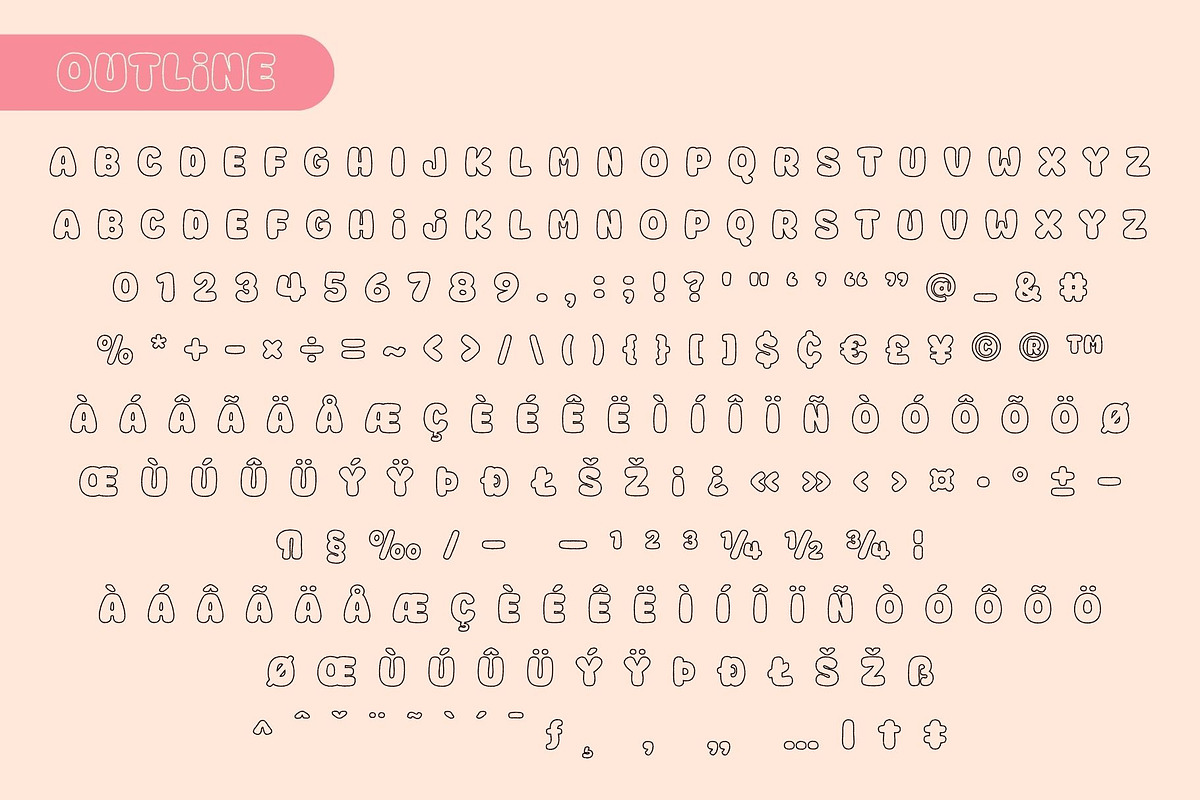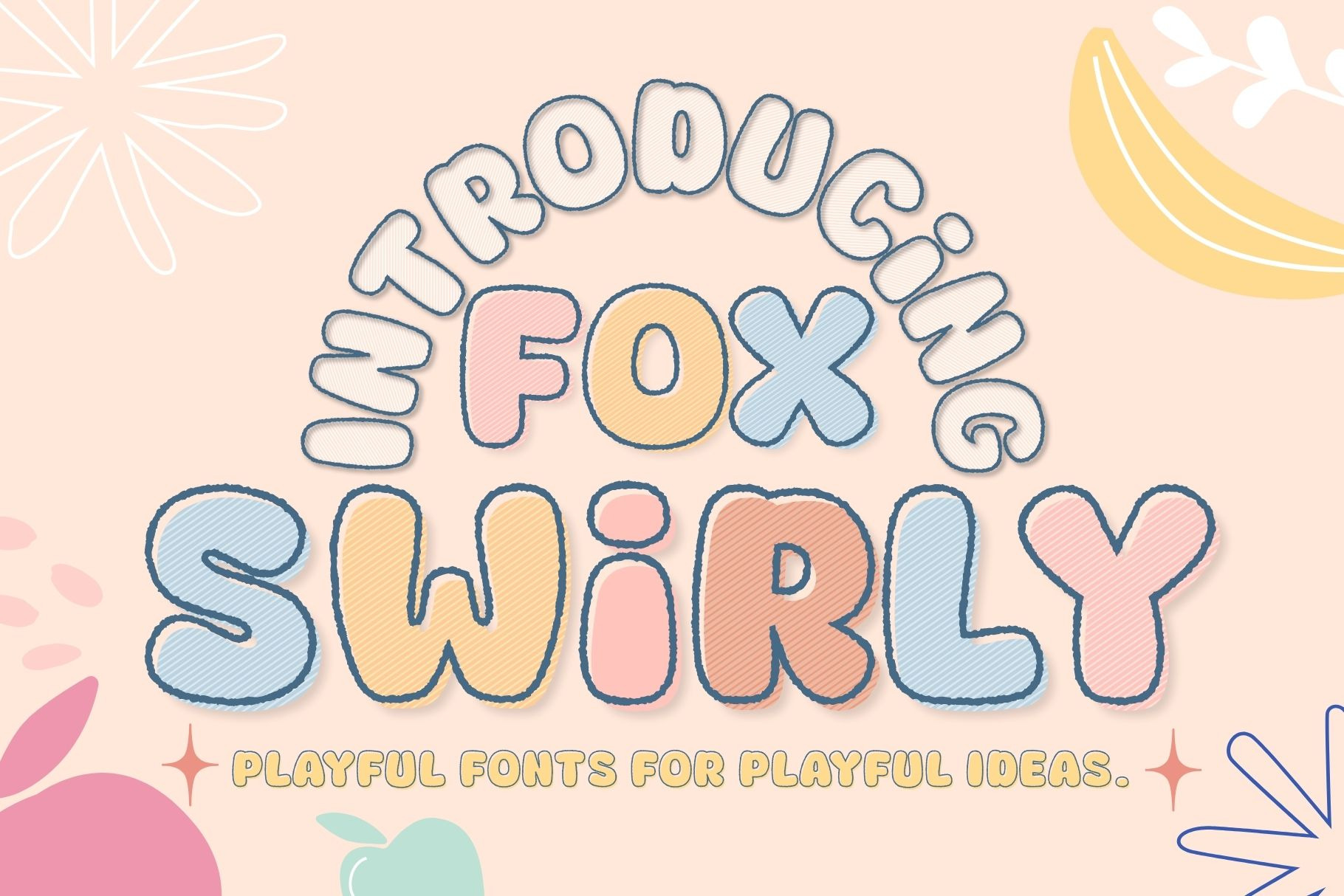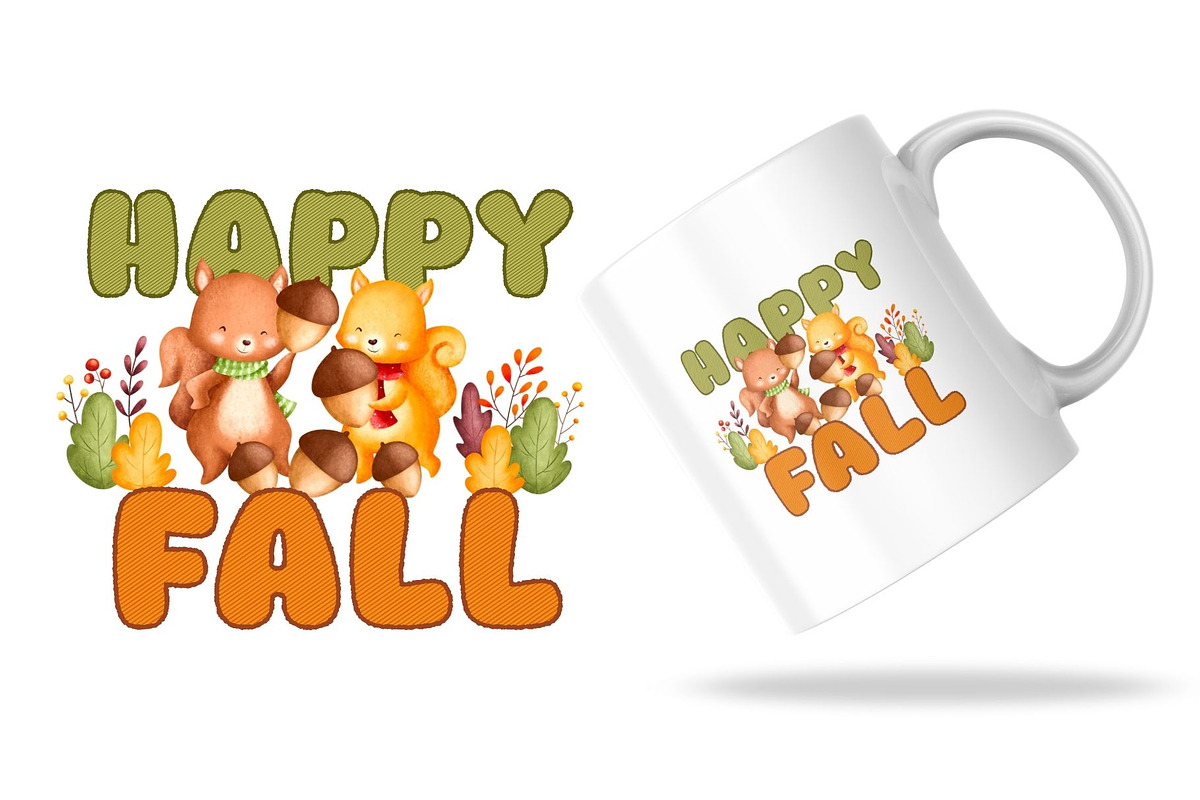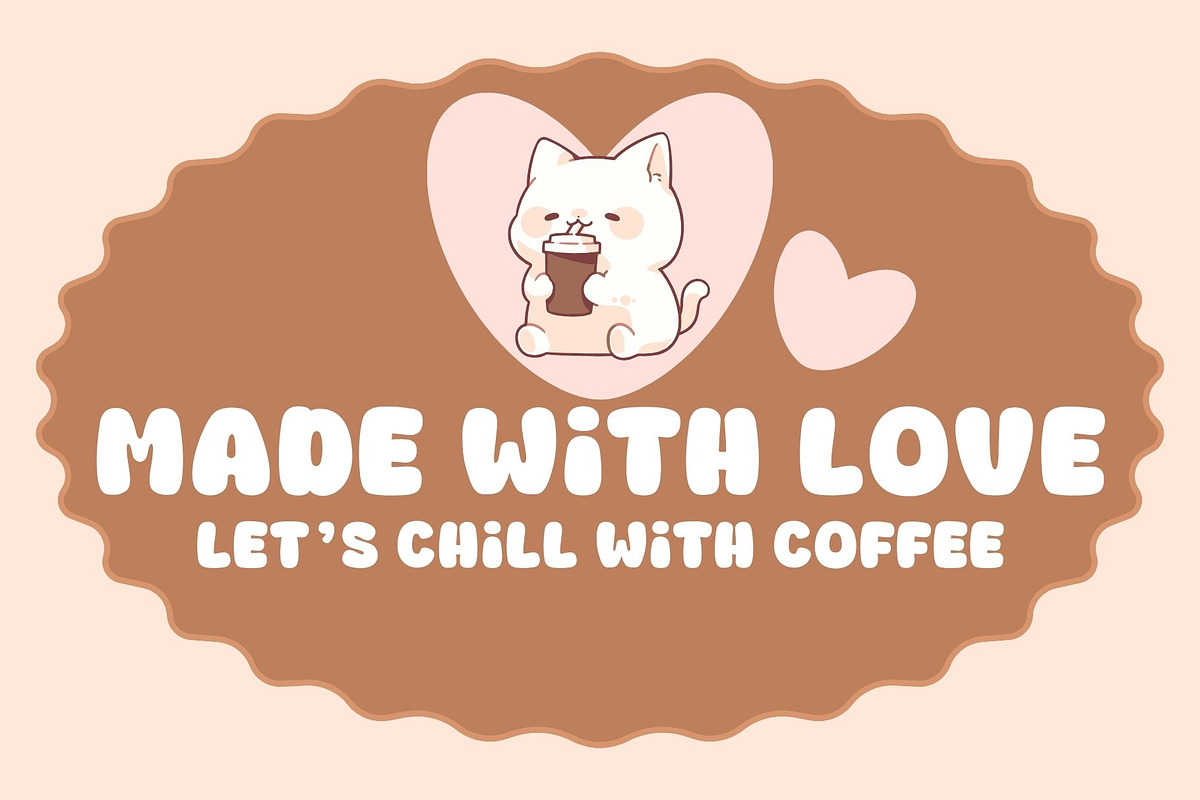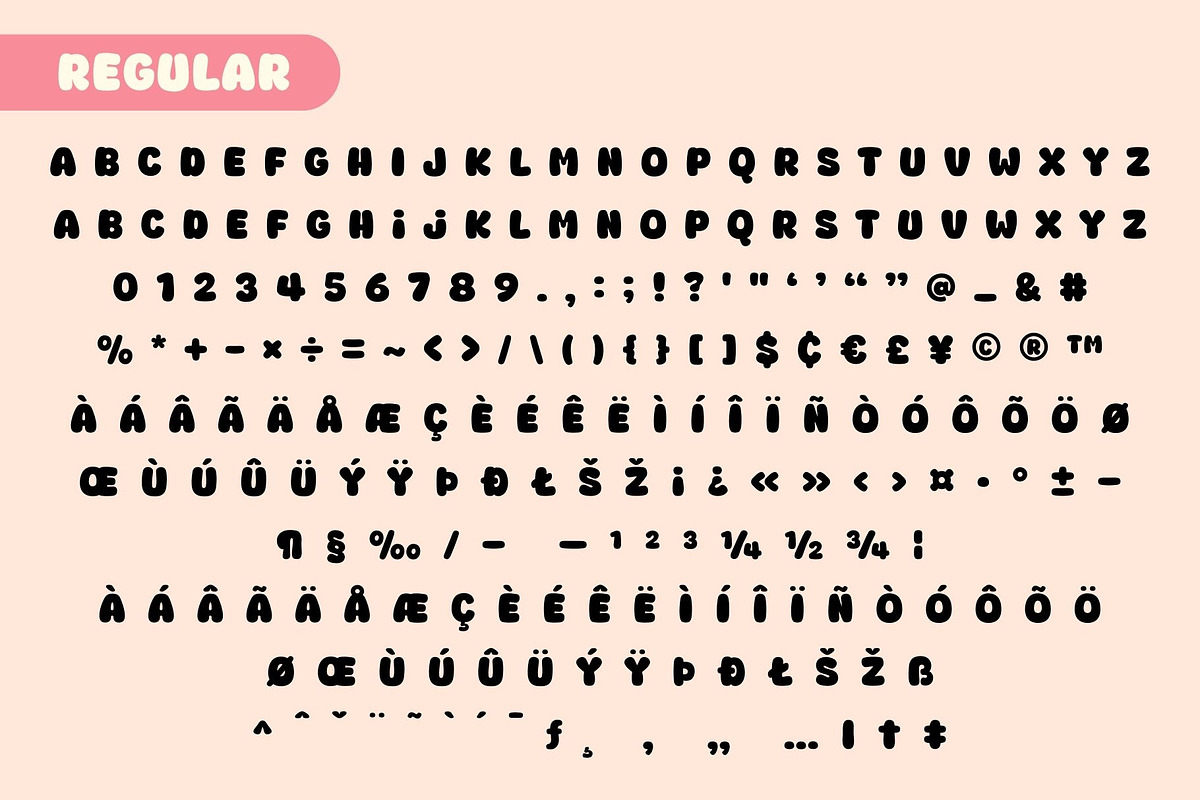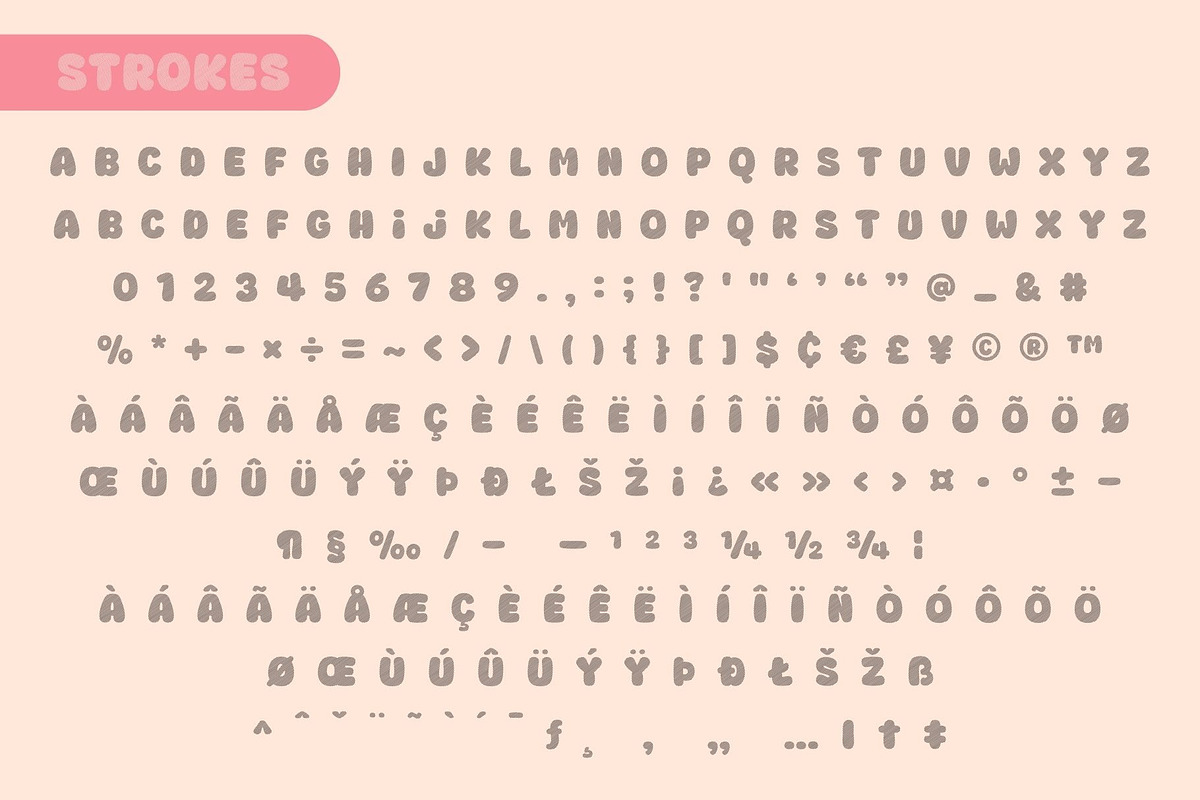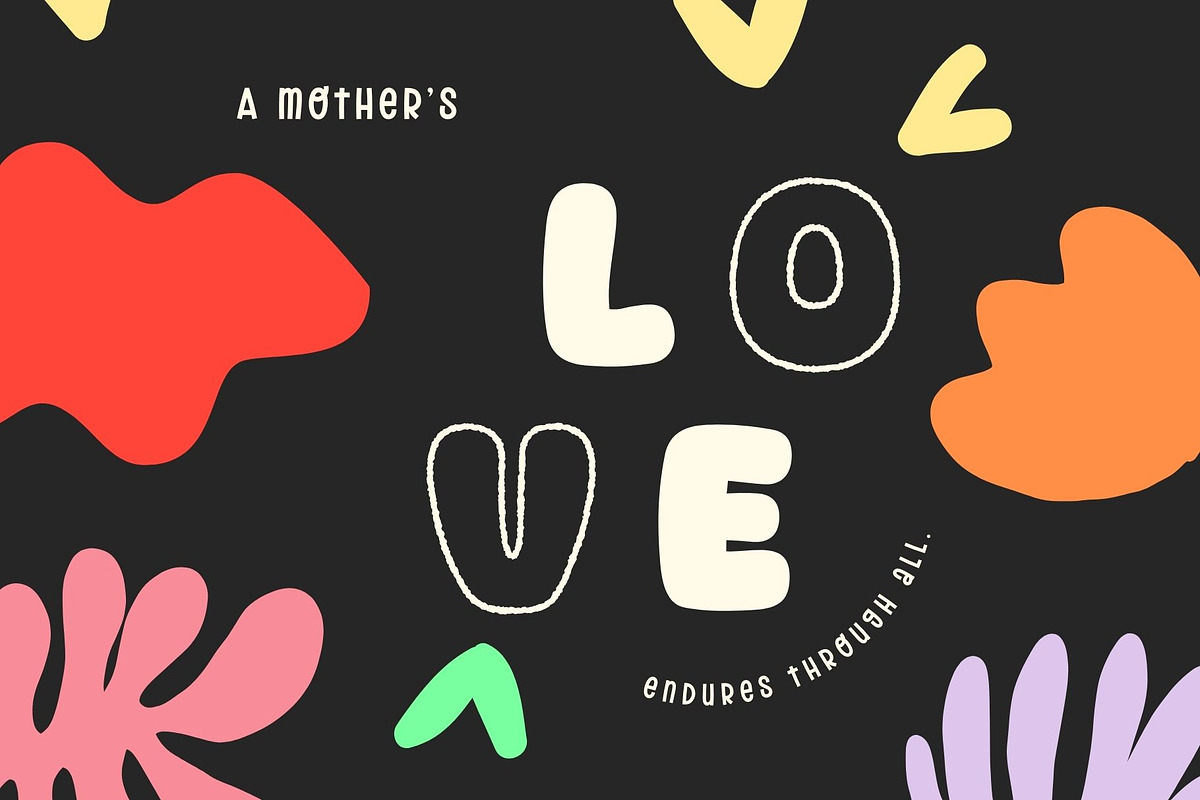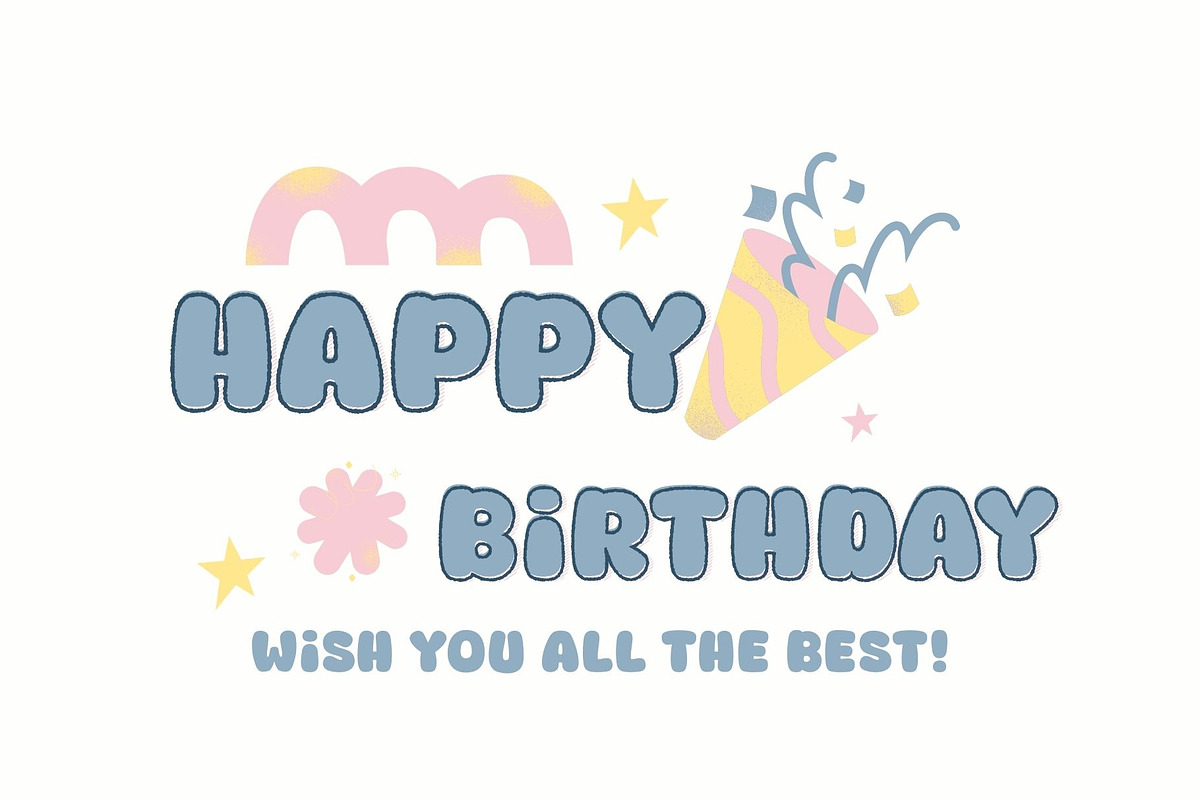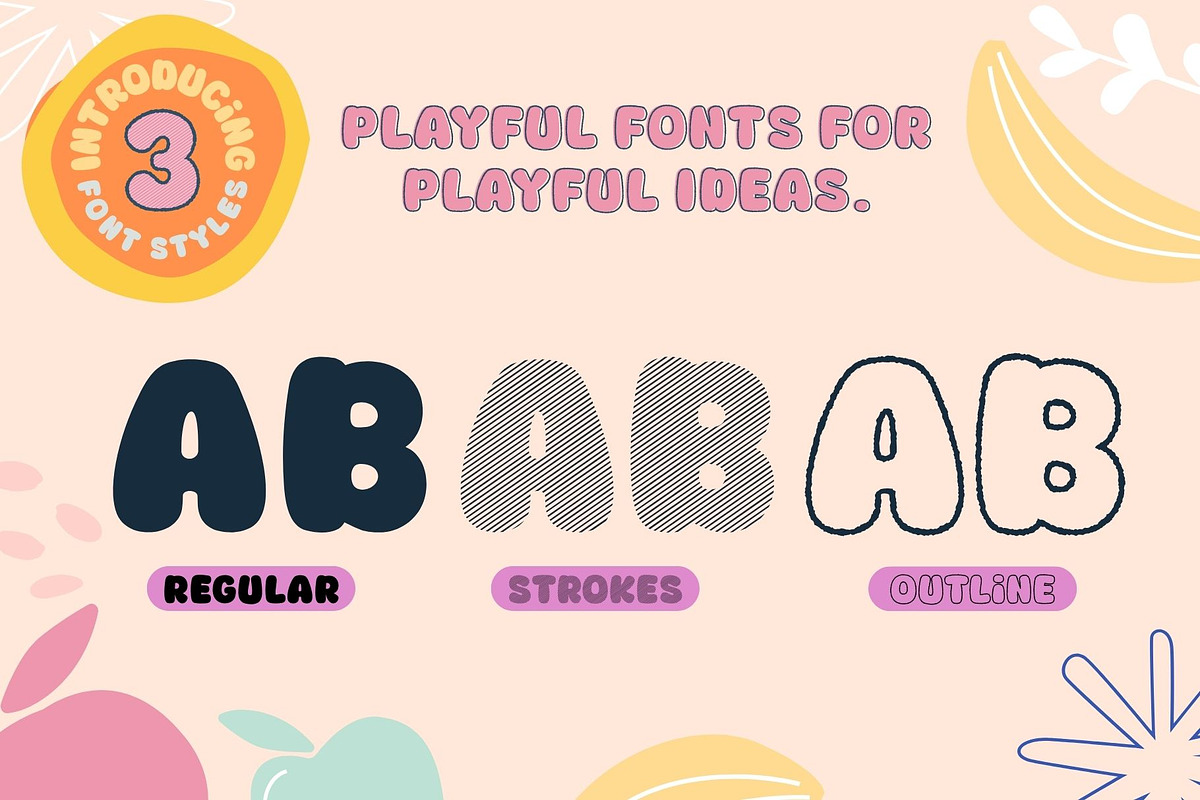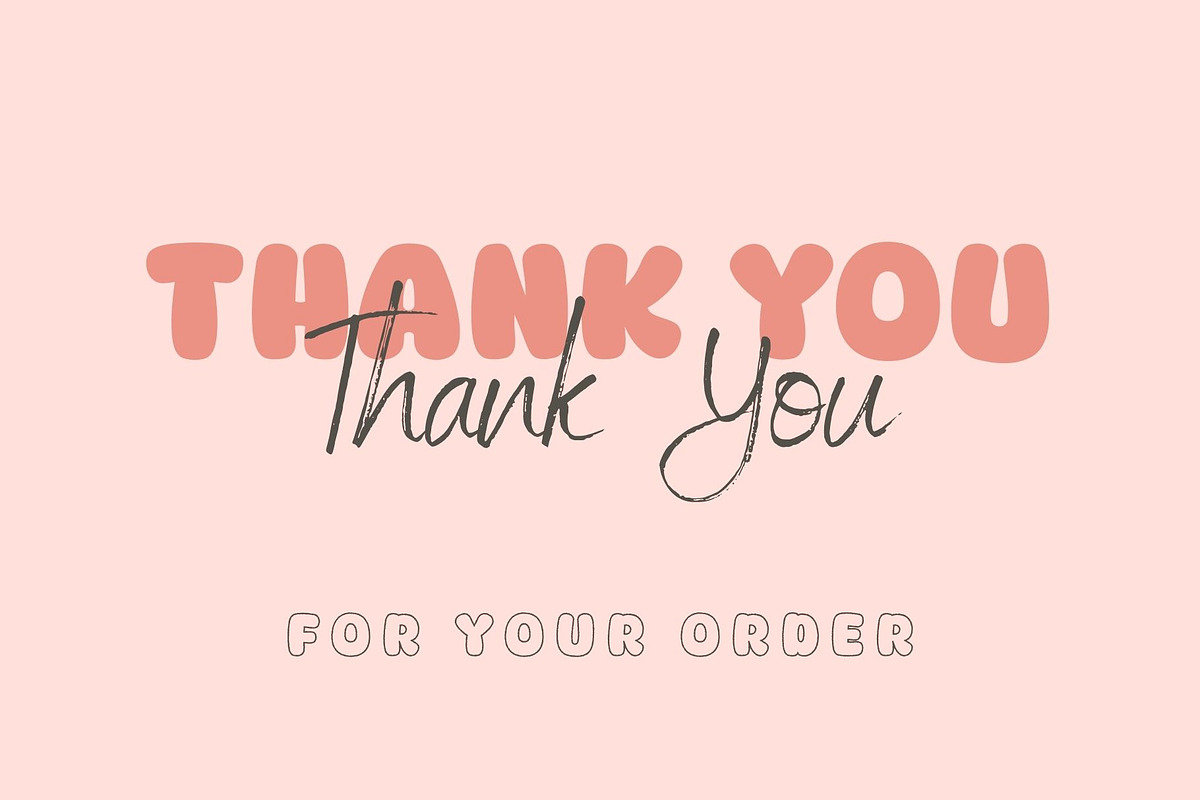
Fox Swirly: 3 Font Styles
Fox Swirly is a cheerful and fun display font designed to bring joy and creativity to your projects! With its bold rounded letters and hand-drawn charm, this font is perfect for playful designs that need a touch of warmth and happiness.
This font comes in 3 unique styles:
⋆ Regular – clean, bold, and easy to use
⋆ Strokes – playful striped style for extra texture
⋆ Outline – fun outlined version for creative effects
Fox Swirly is ideal for posters, invitations, stickers, packaging, branding, children’s projects, social media content, and more. Wherever you want to add a lively and friendly vibe, Fox Swirly will make your designs shine!
✨ Whether you’re designing kids’ packaging, logos, posters, or playful branding, Fox Swirly brings a pop of personality and nostalgic sweetness every time.